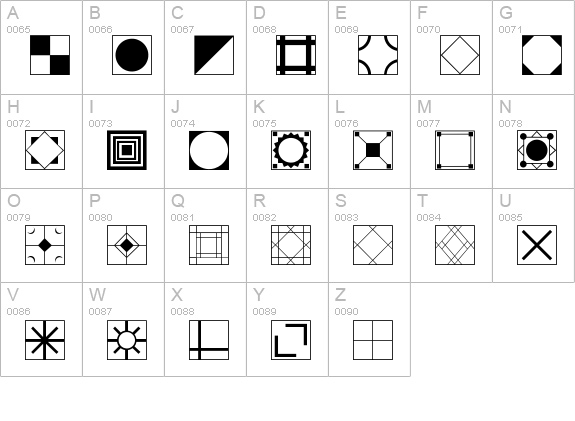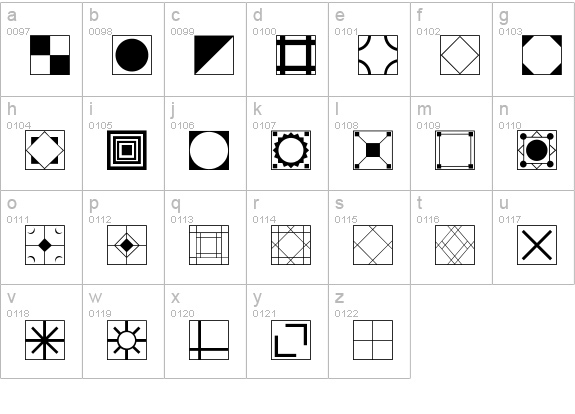
Floor Tile Patterns JL Font Details
Floor Tile Patterns JL font is a versatile and stylish typeface that brings a modern touch to any design project. With its unique tile-inspired patterns, this font is perfect for adding a decorative element to your creations. Whether you're working on a branding project, poster design, or website, Floor Tile Patterns JL font will help you stand out. What's even better is that this font is available for free download at FontsMarket.com. So you can easily access and use it in your projects without any cost. Don't miss out on this opportunity to enhance your designs with the captivating Floor Tile Patterns JL font.